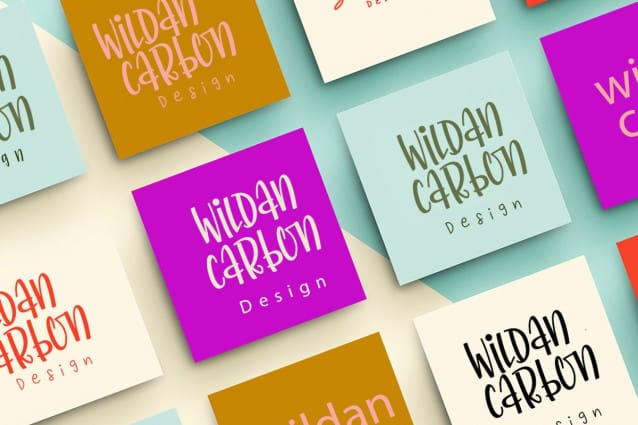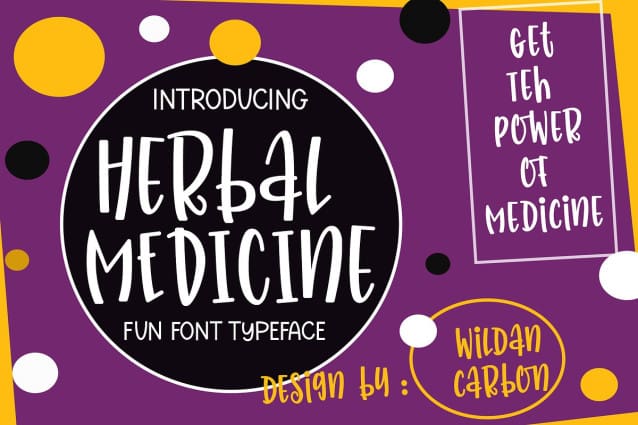
Herbal Medicine Font
Herbal Medicine is a fun and quirky handwritten font with a unique style, playful look & feel! embodies fun. Use this gorgeous and unique font to bring any DIY. you also can enjoy many unic alternate style each character.